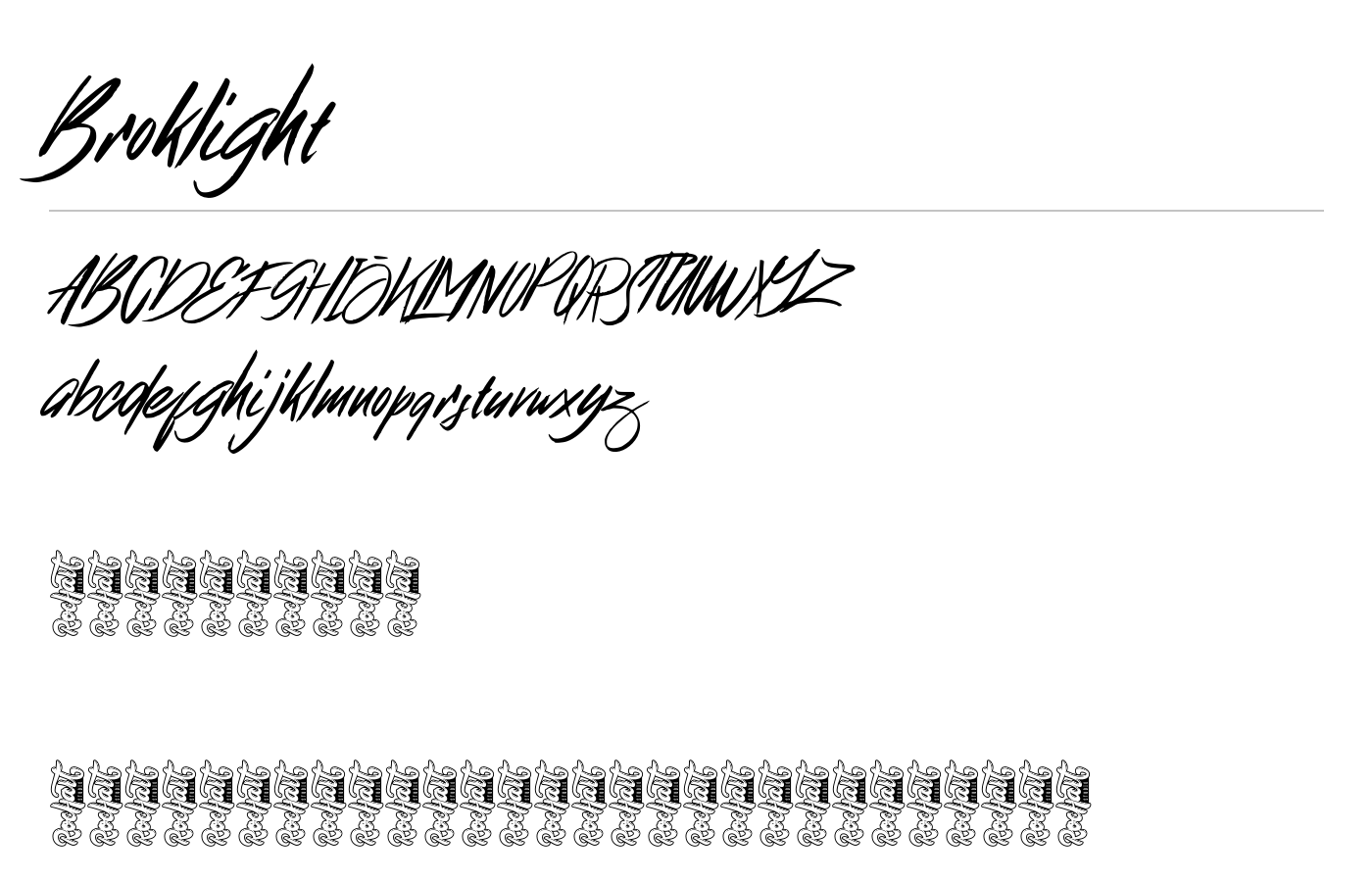
Broklight is a lively, handwritten script font that features a dynamic, brush-like style with sharp, energetic strokes and a natural flow. Its slender, slightly condensed letterforms give it an informal yet expressive personality, perfect for creative branding, eye-catching logos, and stylish editorial headlines. This font works well wherever a personal, artistic touch is needed to convey vibrancy and individuality.
Broklight Font